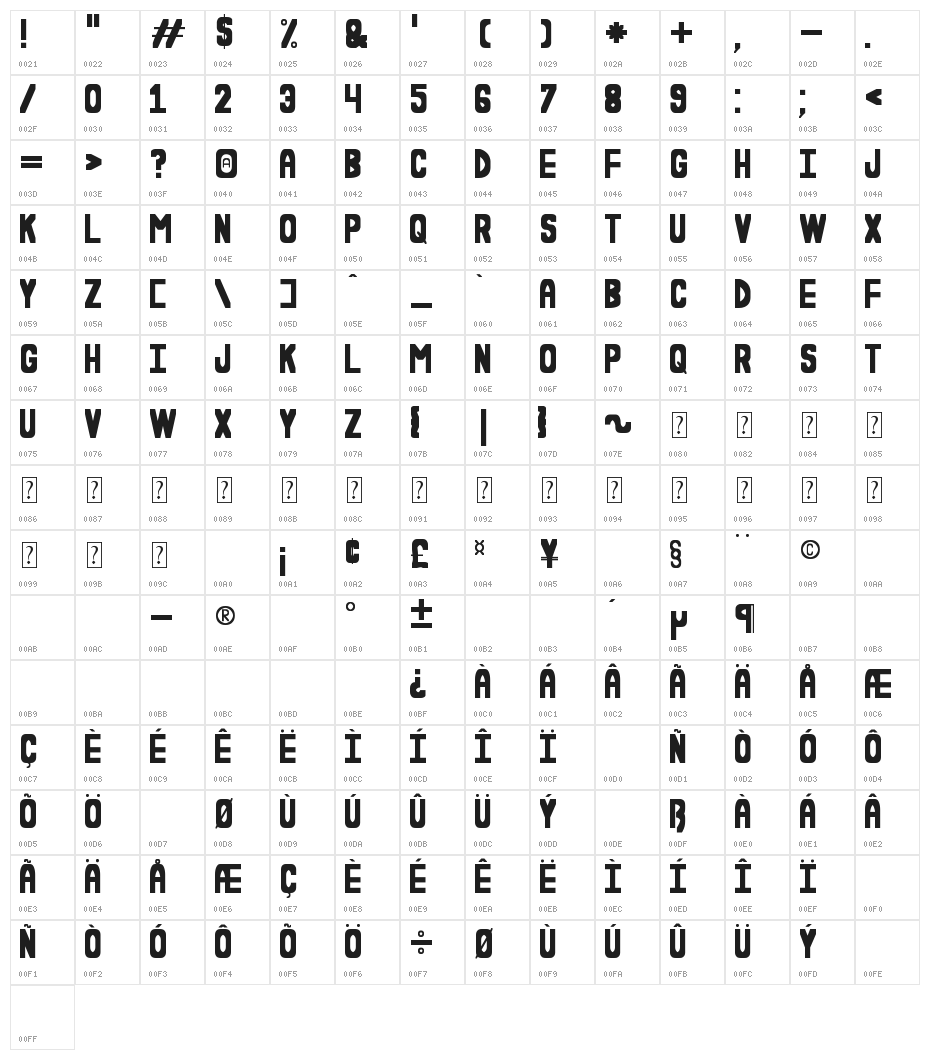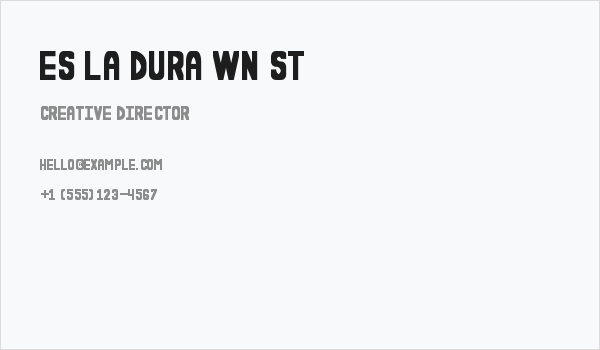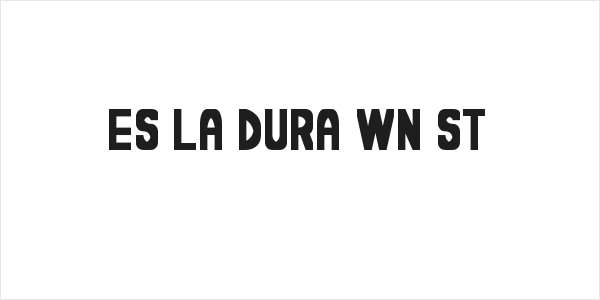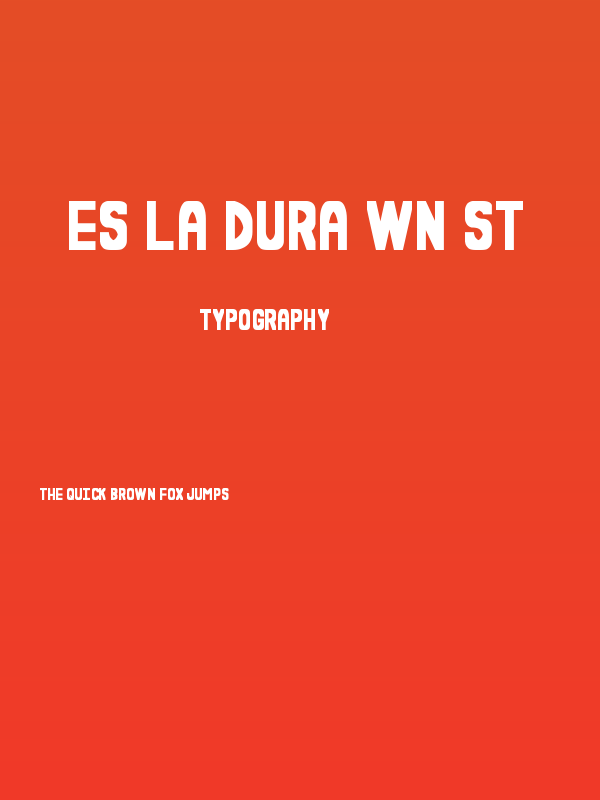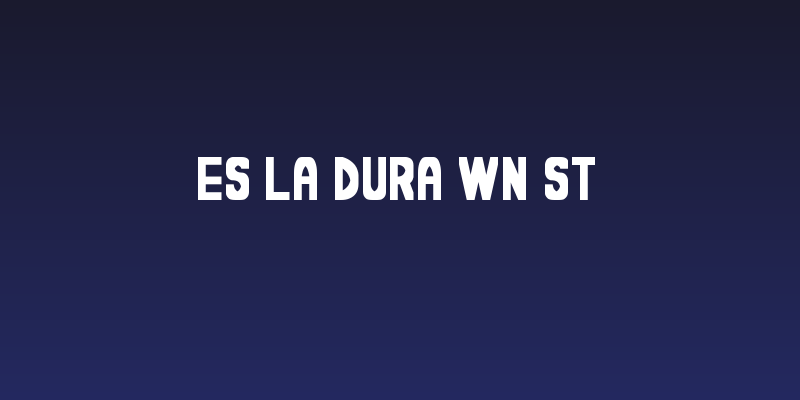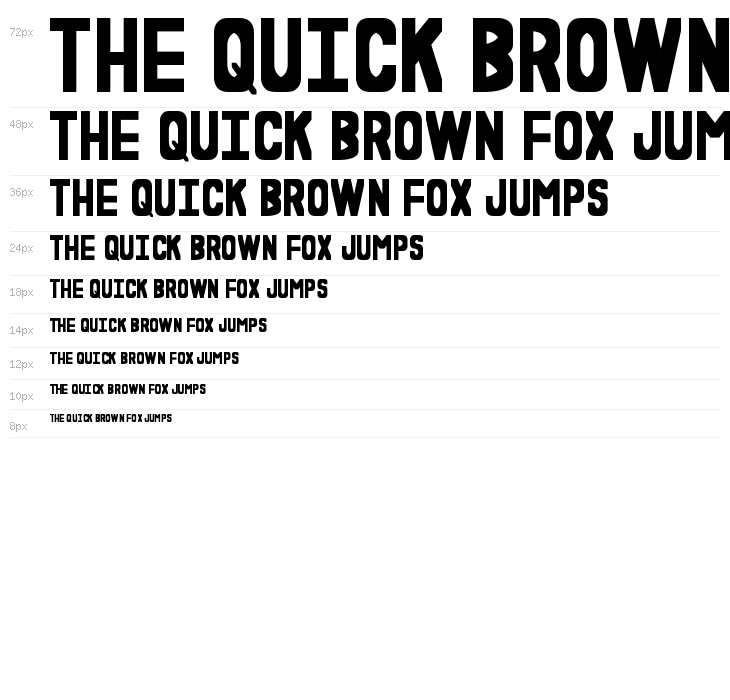
Es la dura wn St Font
Es la dura wn St Description
This font features bold, geometric letterforms with a strong presence. The uppercase letters are uniform in height, creating a cohesive and structured appearance. The characters are wide and blocky, with minimal contrast in stroke thickness, giving them a robust and impactful look. The numbers and special characters maintain the same bold style, ensuring consistency across all glyphs. This font's design is straightforward yet powerful, making it suitable for attention-grabbing applications.
| Proposed Projects | Ideal for posters, banners, headlines, and any design requiring a strong visual impact. |